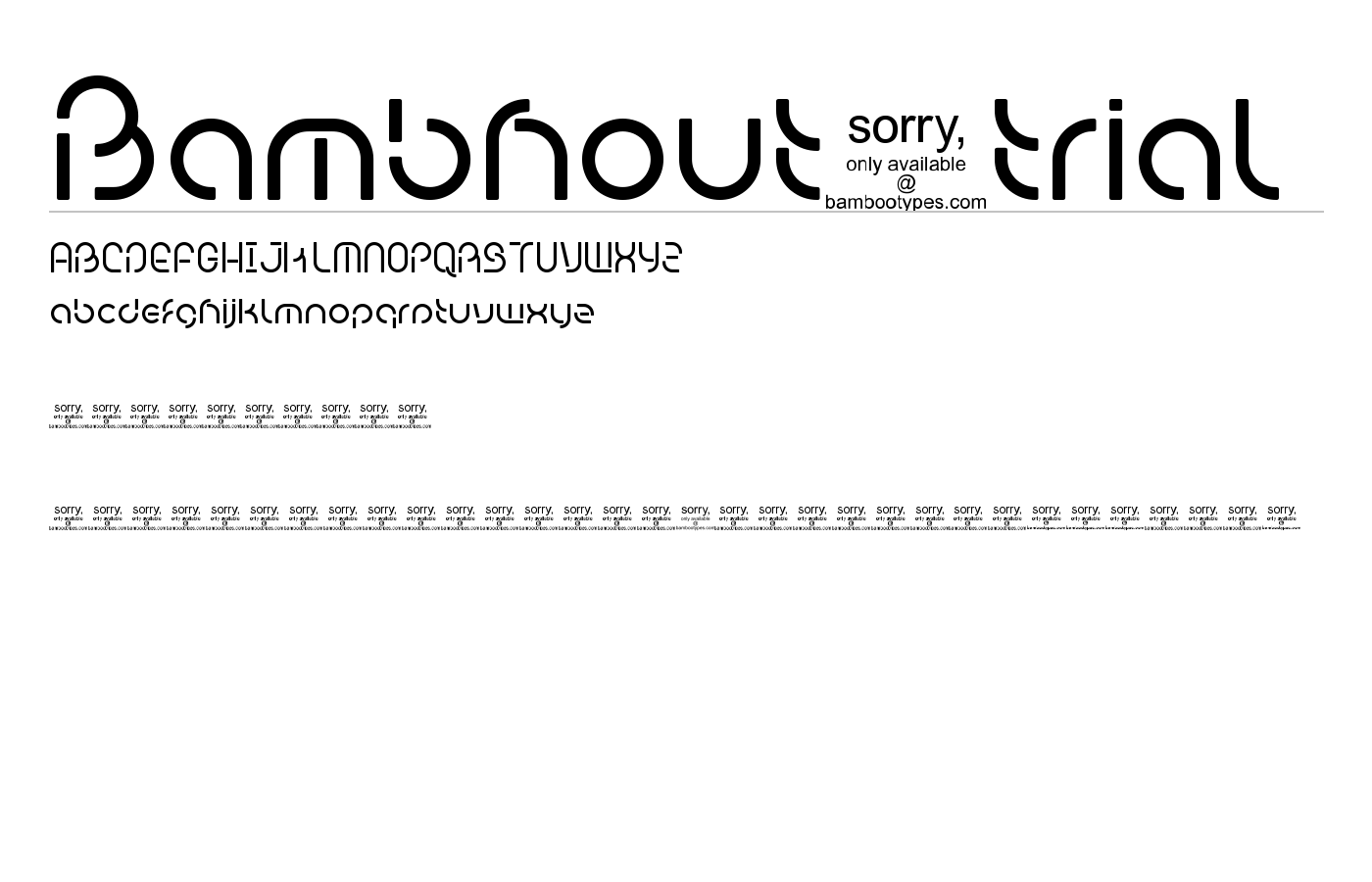
Bambhout_trial is a modern sans serif font characterized by its geometric, rounded forms and uniform stroke weight, giving it a clean yet playful appearance. Its tall x-height and minimalist shapes make it highly readable, while unique letter designs add a futuristic and distinctive touch. This font works well for branding, tech-focused projects, and contemporary headlines looking for a sleek and approachable vibe.